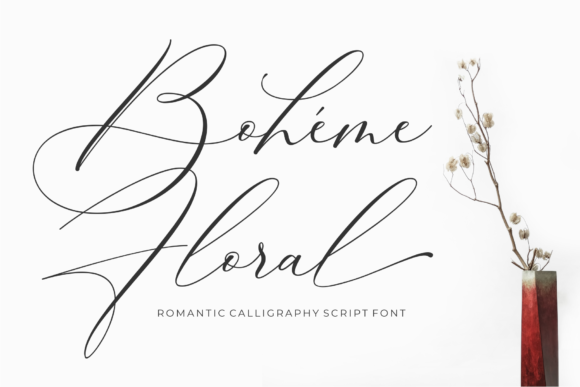
The Magic of Bohéme Floral Font: A Designer’s Delight
I still remember the design project that led me to fall in love with the Bohéme Floral font. I was working on a wedding invitation suite, and my client wanted a font that exuded romance, elegance, and a touch of whimsy. After scouring through countless font libraries, I stumbled upon Bohéme Floral, and it was love at first sight! 💕
The Bohéme Floral font is a classic romantic calligraphy with lovely movements, making it perfect for a wide range of design projects. In this article, I’ll share my experience with this beautiful font, its features, and how to make the most of it in your designs.
- 💫 Elegant and romantic calligraphy with fluid movements
- ✅ Perfect for logos, printed quotes, badges, insignia, packaging, headlines, posters, and more
- 🎨 Highly versatile and can be used for various design projects, from wedding invitations to t-shirt designs
- 🖌️ Beautifully crafted with attention to detail, making it a great choice for high-end designs
While Bohéme Floral is an amazing font, there are a few things to keep in mind:
- 🤔 Some letters may not connect seamlessly, which can affect the overall flow of the text
- ⚠️ May not be suitable for very long texts or body copy, as it’s best used for headlines and titles
- Experiment with the font’s OpenType features, such as glyphs and stylistic alternates, to add more flair to your design
- Experiment with different glyphs, ligatures, and stylistic alternates to create unique designs
The Story Behind Bohéme Floral
The Bohéme Floral font was inspired by the bohemian lifestyle and the beauty of nature. Its creator, a talented type designer, aimed to capture the essence of free-spirited artistry and elegance. The font’s intricate details and fluid movements make it perfect for designs that require a touch of romance and whimsy.
| Font Name | Boheme Floral Font |
| Author | 50Fox |
Q: What type of designs is Bohéme Floral best suited for?
A: Bohéme Floral is perfect for logos, printed quotes, badges, insignia, packaging, headlines, posters, t-shirt designs, greeting cards, and wedding invitations!
Q: Is Bohéme Floral a difficult font to use?
A: Not at all! Bohéme Floral is relatively easy to use, especially if you’re familiar with script fonts. Experiment with its OpenType features and glyphs to get the most out of the font.